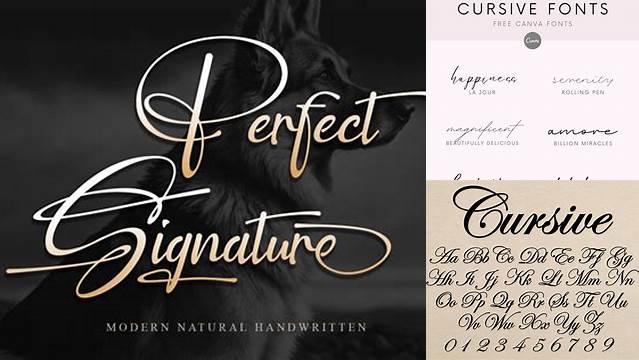
Cursive Fonts: Find Your Perfect Style On Dafont
Hey guys! Ever wanted to add a touch of elegance or a personal flair to your projects? Well, diving into the world of cursive fonts on Dafont is a fantastic way to do just that. Dafont is a treasure trove of fonts, and it's a great place to find the perfect cursive font that speaks to your creative soul. Let's explore how you can discover and use these beautiful fonts to make your work stand out.
1. Exploring Different Styles of Cursive Fonts on Dafont
When you're on the hunt for cursive fonts, it's super helpful to understand the variety available. Dafont offers a huge range, from classic calligraphy-inspired scripts to modern, playful handwritings. Classic cursive fonts often feature elegant loops and flowing lines, making them ideal for wedding invitations or formal announcements. On the other hand, modern cursive fonts can be more casual and quirky, perfect for branding projects or social media graphics. It's all about figuring out what vibe you're going for. Think about the overall message you want to convey – is it sophistication, fun, or something in between? By exploring the different styles, you'll get a better sense of what resonates with your project's needs. Dafont makes it easy to browse through these styles, so take your time and see what catches your eye!
3. Using Cursive Fonts in Graphic Design Projects
Incorporating cursive fonts into your graphic design projects can add a touch of elegance and personality. When using cursive fonts, consider the readability. While they're beautiful, they can sometimes be harder to read than sans-serif fonts, especially in large blocks of text. Use them sparingly for headings, titles, or logos, where their flair can really shine without compromising readability. Pair them with a simple, clean sans-serif font for body text to create a balanced and visually appealing design. Think about the overall tone of your project. A formal invitation might call for a classic, flowing cursive, while a fun, youthful brand might benefit from a more playful, modern script. Experiment with different font pairings and sizes to see what works best. Cursive fonts can really elevate your designs, making them feel more custom and hand-crafted.
4. Pairing Cursive Fonts with Other Font Styles
One of the keys to mastering cursive fonts is knowing how to pair them effectively with other font styles. Cursive fonts often work best when combined with simple, clean fonts like sans-serif or slab-serif fonts. For example, you could use a elegant cursive font for a heading and pair it with a straightforward sans-serif font like Arial or Helvetica for the body text. This creates a nice contrast that makes the cursive font stand out while ensuring readability. Avoid pairing cursive fonts with other highly decorative fonts, as this can make your design look cluttered and overwhelming. Think about the hierarchy of your design. Use the cursive font to draw attention to the most important elements, and use a simpler font for the supporting text. Experiment with different combinations until you find a pairing that feels balanced and harmonious. A well-chosen font pairing can make your design look polished and professional.
6. Best Cursive Fonts for Wedding Invitations
When it comes to wedding invitations, cursive fonts are a classic choice for adding a touch of romance and elegance. The best cursive fonts for this purpose often feature flowing lines, delicate swirls, and a formal feel. Think about fonts that mimic traditional calligraphy or handwriting. Some popular options include Edwardian Script, Brush Script MT, and Carolyna Pro Black. These fonts evoke a sense of sophistication and can make your wedding invitations feel extra special. When using cursive fonts for wedding invitations, make sure they are legible and easy to read, especially for important details like the date, time, and location. Pair the cursive font with a simple sans-serif font for the body text to ensure clarity. Consider the overall style of your wedding – is it modern, vintage, or traditional? Choose a cursive font that complements the theme and reflects your personal taste.
7. Top Cursive Fonts for Logo Design
Using cursive fonts in logo design can create a distinctive and memorable brand identity. However, it's crucial to choose the right cursive font that aligns with your brand's personality and values. For a sophisticated and high-end brand, consider using a classic, elegant cursive font like Great Vibes or Allura. For a more playful and approachable brand, opt for a modern, hand-drawn script like Amatic SC or Pacifico. Ensure the font is legible and scalable, as your logo will be used in various sizes and formats. Test the font on different backgrounds and colors to see how it looks. Avoid using overly decorative or intricate cursive fonts, as they can be difficult to read and may not translate well across different media. Keep the design simple and focus on creating a visually appealing and recognizable logo.
8. Modern Cursive Fonts Trending Now
The world of cursive fonts is constantly evolving, with new styles and trends emerging all the time. Currently, modern cursive fonts with a hand-drawn or brush-stroke aesthetic are particularly popular. These fonts offer a more casual and contemporary feel compared to traditional cursive fonts. They often feature unique letterforms, imperfect lines, and a touch of personality. Some trending modern cursive fonts include Selima Script, Stay Classy, and Hello Sunshine. These fonts are perfect for branding projects, social media graphics, and any design that needs a fresh and stylish touch. Keep an eye on design blogs and font marketplaces to stay up-to-date with the latest trends in cursive fonts. Experiment with different styles and see how they can elevate your designs.
9. Calligraphy-Inspired Cursive Fonts
For a touch of timeless elegance, calligraphy-inspired cursive fonts are an excellent choice. These fonts mimic the beautiful strokes and flourishes of traditional calligraphy, adding a sense of sophistication and craftsmanship to your designs. They often feature varying line weights, elegant loops, and decorative swashes. Cursive fonts like Edwardian Script, Italianno, and Lavanderia are great examples of calligraphy-inspired scripts. They're perfect for formal invitations, certificates, and any project that calls for a refined and classic look. When using calligraphy-inspired fonts, pay attention to the spacing and kerning to ensure the letters flow seamlessly together. Use them sparingly to highlight important words or phrases and pair them with a clean, simple font for the body text to maintain readability.
10. Handwritten Cursive Fonts for a Personal Touch
If you're looking to add a personal and authentic touch to your designs, handwritten cursive fonts are the way to go. These fonts capture the unique imperfections and nuances of real handwriting, making your designs feel more human and relatable. They often feature slightly uneven lines, natural-looking letterforms, and a warm, inviting feel. Cursive fonts such as Amatic SC, Permanent Marker, and Coming Soon are popular choices for adding a handwritten touch. Use them for greeting cards, thank-you notes, or any project where you want to convey a sense of intimacy and sincerity. Be mindful of readability when using handwritten fonts, and choose a font that is easy to decipher. Pair them with a simple sans-serif font to balance the design and ensure clarity.
11. Using Cursive Fonts in Social Media Graphics
Incorporating cursive fonts into your social media graphics can help you create eye-catching and engaging content. Choose cursive fonts that align with your brand's personality and style. Use them for headlines, captions, or watermarks to add a touch of flair and personality to your images and videos. Make sure the font is legible on different devices and screen sizes. Consider using a contrasting color to make the cursive font stand out against the background. Experiment with different font sizes and styles to see what works best for your social media platform. Remember to maintain consistency in your font choices to create a cohesive brand identity.
12. Cursive Fonts for Business Cards
A well-chosen cursive font can make your business cards stand out and leave a lasting impression. Use cursive fonts sparingly for your name, title, or company tagline. Choose a font that reflects your brand's personality and style. For a professional and sophisticated look, opt for a classic cursive font like Great Vibes or Allura. For a more creative and modern feel, consider a handwritten or brush-script font. Make sure the font is legible and easy to read, especially for important contact information like your phone number and email address. Pair the cursive font with a clean, sans-serif font for the rest of the text to ensure clarity. Keep the design simple and uncluttered to create a professional and memorable business card.
13. Pairing Cursive Fonts with Serif Fonts
Pairing cursive fonts with serif fonts can create a balanced and harmonious design. Serif fonts have small decorative strokes at the end of each letter, which can add a touch of formality and tradition. When pairing cursive fonts with serif fonts, choose a serif font that is simple and clean to avoid overwhelming the design. For example, you could pair a flowing cursive font like Edwardian Script with a classic serif font like Times New Roman or Garamond. Use the cursive font for headings or titles and the serif font for the body text. Experiment with different font sizes and weights to create a visual hierarchy and ensure readability. A well-chosen cursive and serif font pairing can elevate your design and make it look more polished and professional.
14. Cursive Fonts for Crafting Projects
Cursive fonts are a fantastic addition to various crafting projects, adding a personal and artistic touch. Whether you're creating custom cards, scrapbook layouts, or personalized gifts, the right cursive font can elevate your project. For paper crafts, consider using fonts that are easy to cut with scissors or a craft knife. Bold, clean cursive styles often work best. If you're using a cutting machine like a Cricut or Silhouette, ensure the font is compatible and adjust the settings for clean cuts. Experiment with different colors and textures to make your cursive elements stand out. Consider using adhesive vinyl for adding cursive lettering to mugs, signs, or other home décor items. Let your creativity flow and use cursive fonts to add a unique and heartfelt touch to your crafting projects.
15. Using Cursive Fonts in Posters
When designing posters, cursive fonts can be a great way to catch the viewer's eye and convey a specific mood. Consider the overall message and target audience of your poster when selecting a cursive font. For a vintage-inspired poster, a classic script with elegant flourishes can set the tone. If you're aiming for a modern and playful feel, a bold, handwritten cursive might be more appropriate. Ensure that the cursive font is legible from a distance, especially for important information like event dates or headlines. Use the font sparingly to highlight key elements and pair it with a simpler font for the supporting text. Experiment with different colors and background textures to create a visually appealing and impactful poster. Remember to test the design in different sizes to ensure readability and clarity.
16. Cursive Fonts for T-Shirt Designs
Incorporating cursive fonts into your t-shirt designs can add a touch of style and personality. Choose a cursive font that aligns with the overall aesthetic and message of your design. For a trendy and casual look, consider using a handwritten or brush-script font. If you're aiming for a more sophisticated and elegant design, opt for a classic cursive font with flowing lines. Ensure the font is legible and easy to read, even when printed on fabric. Consider the size and placement of the cursive text on the t-shirt. Test the design on different fabric colors and textures to see how it looks. Use high-quality vector graphics to ensure sharp and clean printing results. Cursive fonts can help you create unique and eye-catching t-shirt designs that stand out from the crowd.
17. Cursive Fonts and Readability: Best Practices
While cursive fonts can add a touch of elegance and personality to your designs, it's crucial to consider readability. Cursive fonts are often more challenging to read than sans-serif or serif fonts, especially in large blocks of text. To ensure readability, use cursive fonts sparingly for headings, titles, or short phrases. Choose a font that is easy to decipher and avoid overly decorative or intricate styles. Increase the font size and line spacing to improve legibility. Pair the cursive font with a simple and clean font for the body text. Use contrasting colors to make the cursive text stand out against the background. Test the design on different devices and screen sizes to ensure it is legible for all viewers. By following these best practices, you can use cursive fonts effectively without sacrificing readability.
18. The Psychology of Cursive Fonts in Design
Cursive fonts can evoke a range of emotions and associations, making them a powerful tool in design. Understanding the psychology behind cursive fonts can help you choose the right font to convey your intended message. Classic cursive fonts often evoke feelings of elegance, sophistication, and tradition. Handwritten cursive fonts can create a sense of warmth, intimacy, and authenticity. Bold and playful cursive fonts can convey a sense of fun, energy, and creativity. Consider the target audience and the overall brand identity when selecting a cursive font. Use the font to reinforce the desired emotions and create a positive impression. A well-chosen cursive font can enhance the impact of your design and resonate with your audience on a deeper level.
19. Cursive Fonts for Book Covers
Cursive fonts can be a compelling choice for book covers, adding a touch of personality and intrigue. The selection of a cursive font should align with the book's genre and target audience. For romance novels or historical fiction, an elegant script can enhance the cover's romantic appeal. In contrast, a playful or edgy cursive may be suitable for young adult fiction. Ensure the font is legible, especially for the title and author's name, as these are crucial for attracting readers. Consider using the cursive font for only the title or a key element, pairing it with a simpler, more readable font for the rest of the cover text. Experiment with different font sizes, colors, and placements to find the most visually appealing and impactful design. A well-chosen cursive font can make your book cover stand out and entice readers to pick up your book.
20. Where to Find Inspiration for Using Cursive Fonts
Finding inspiration is key when working with cursive fonts. Look to various sources to spark your creativity and discover unique ways to use cursive fonts in your projects. Browse design blogs, online portfolios, and social media platforms like Pinterest and Instagram for examples of creative font pairings and layouts. Analyze the use of cursive fonts in branding materials, advertisements, and editorial designs. Pay attention to how different styles of cursive fonts evoke different emotions and messages. Visit font marketplaces like Dafont, MyFonts, and Creative Market to explore a wide range of cursive fonts and see how they are used in promotional materials. Experiment with different font combinations and design techniques to develop your own unique style. The more you explore and experiment, the more confident you will become in using cursive fonts effectively.
21. Mastering Kerning and Spacing with Cursive Fonts
Kerning and spacing are crucial for achieving professional-looking typography with cursive fonts. Kerning refers to the adjustment of space between individual letters, while spacing refers to the overall space between words and lines. Cursive fonts, with their flowing connections, often require careful kerning to ensure readability and visual harmony. Pay close attention to the spaces between letters, especially where the strokes connect or overlap. Adjust the kerning manually to create a balanced and even appearance. Experiment with different spacing values to find the optimal balance between readability and visual appeal. Use tracking (letter-spacing) sparingly, as it can disrupt the flow of cursive fonts. Mastering kerning and spacing will elevate the quality of your typography and make your designs look more polished.
22. Cursive Fonts and Accessibility Considerations
When using cursive fonts, it's essential to consider accessibility to ensure that your designs are inclusive and usable by everyone. Cursive fonts can be challenging for people with dyslexia or visual impairments to read. To improve accessibility, use cursive fonts sparingly and only for decorative purposes. Choose a font that is relatively easy to decipher and avoid overly ornate or intricate styles. Increase the font size and line spacing to improve legibility. Provide alternative text for images that contain cursive fonts. Use high contrast colors to make the cursive text stand out against the background. Consider providing a text-based alternative for users who have difficulty reading cursive fonts. By following these guidelines, you can make your designs more accessible and inclusive.
23. The Future of Cursive Fonts in Digital Design
The future of cursive fonts in digital design looks bright, with new trends and technologies emerging all the time. Cursive fonts are becoming increasingly popular in web design, app interfaces, and digital marketing materials. The rise of responsive design has made it easier to use cursive fonts effectively on different devices and screen sizes. Variable fonts, which allow for dynamic adjustments to font weight, width, and style, are opening up new possibilities for cursive font design. Artificial intelligence and machine learning are being used to generate new and innovative cursive fonts. As digital design continues to evolve, cursive fonts will play an increasingly important role in creating visually appealing and engaging user experiences.
24. Cursive Fonts in Motion Graphics
Incorporating cursive fonts into motion graphics can add a dynamic and stylish touch to your animations. Cursive fonts work well for creating elegant titles, lower thirds, and call-to-actions. Consider using animated strokes or handwriting effects to reveal the cursive text gradually. Experiment with different easing and timing techniques to create a smooth and fluid animation. Pair the cursive font with a clean and modern sans-serif font for the supporting text. Use contrasting colors and background elements to make the cursive text stand out. Animate the font in sync with the music or sound effects to create a cohesive and engaging visual experience. Cursive fonts can help you create motion graphics that are both visually stunning and effective in communicating your message.
25. Cursive Fonts for Product Packaging
Using cursive fonts on product packaging can create a distinctive and appealing look that attracts consumers. The choice of cursive font should align with the product's brand identity and target market. For luxury goods or artisanal products, an elegant script can convey a sense of quality and craftsmanship. A playful or quirky cursive may be suitable for children's products or trendy snacks. Ensure the font is legible, even in small sizes, and consider the space available on the packaging. Use the cursive font to highlight key information, such as the product name or a tagline. Pair it with a simpler font for the ingredients list or other essential details. The overall design should be visually appealing and informative, encouraging consumers to purchase the product. Cursive fonts can help your product packaging stand out on the shelves and convey the desired brand message.
26. Common Mistakes to Avoid When Using Cursive Fonts
While cursive fonts can enhance your designs, it's essential to avoid common mistakes that can detract from their effectiveness. One of the most common mistakes is using cursive fonts for large blocks of text, which can make the text difficult to read. Avoid using overly ornate or intricate cursive fonts that are hard to decipher. Be mindful of kerning and spacing, as poor kerning can make the font look unbalanced and unprofessional. Avoid pairing cursive fonts with other highly decorative fonts, as this can create a cluttered and overwhelming design. Don't forget to consider accessibility and ensure that your designs are usable by everyone. By avoiding these common mistakes, you can use cursive fonts effectively and create visually appealing and accessible designs.
27. Creating Your Own Cursive Font
If you're feeling creative, why not try creating your own cursive font? This can be a fun and rewarding way to express your unique style and add a personal touch to your designs. Start by sketching out the basic letterforms and experimenting with different styles and variations. Use a calligraphy pen or brush to create flowing lines and elegant strokes. Digitize your sketches using a scanner or digital camera and import them into font creation software like FontLab Studio or Glyphs. Use the software to refine the letterforms, adjust the kerning and spacing, and create the necessary font files. Test your font in different applications to ensure it looks good and functions correctly. Creating your own cursive font can be a challenging but ultimately satisfying process that allows you to unleash your creativity and design something truly unique.
28. The Ethics of Using Free Cursive Fonts
When using free cursive fonts, it's crucial to consider the ethics and licensing terms to ensure that you are respecting the font designer's rights. Most free cursive fonts are free for personal use only, which means you can use them for non-commercial projects like school assignments or personal invitations. However, if you plan to use the font for commercial purposes, such as in a logo, advertisement, or product packaging, you may need to purchase a commercial license. Always check the font's license agreement to determine the permitted uses. If you're unsure about the licensing terms, contact the font designer directly to ask for clarification. Respecting the font designer's rights is essential for supporting their work and ensuring the sustainability of the font design industry. When in doubt, err on the side of caution and purchase a commercial license to avoid any potential legal issues.
29. Resources for Learning More About Cursive Fonts
If you're interested in learning more about cursive fonts, there are many valuable resources available online and offline. Online, you can find a wealth of information on design blogs, typography websites, and font marketplaces. Look for articles, tutorials, and videos that cover topics like font pairing, kerning, and the history of cursive fonts. Check out online courses and workshops offered by design schools and industry experts. Offline, you can find books on typography and calligraphy at your local library or bookstore. Attend design conferences and workshops to network with other designers and learn from industry leaders. Experiment with different cursive fonts and design techniques to develop your own unique style. The more you learn and practice, the more confident you will become in using cursive fonts effectively.
30. Maintaining a Cursive Font Library
Building and maintaining a well-organized cursive font library is essential for any designer or creative professional. Start by creating a dedicated folder on your computer to store your cursive fonts. Organize your fonts into subfolders based on style, category, or project. Use a font management tool like FontBase or NexusFont to preview, activate, and deactivate fonts easily. Regularly update your font library by adding new and interesting cursive fonts. Remove any fonts that you no longer use or that are of poor quality. Back up your font library to a separate hard drive or cloud storage service to prevent data loss. By maintaining a well-organized and up-to-date cursive font library, you can save time, increase productivity, and ensure that you always have the right font for your design projects.